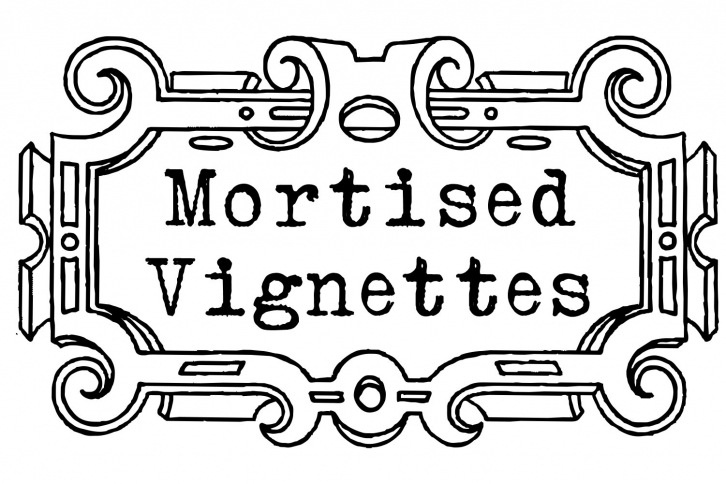
Mortised Vignettes is a trendy and unique font with an authentic style. It was designed by Monocracy Types and it's a great choice for creative people who need such a font. It was released on December 11, 2020 and the file size is 11.47 MB. Mortised Vignettes will add an organic vibe to any design idea!